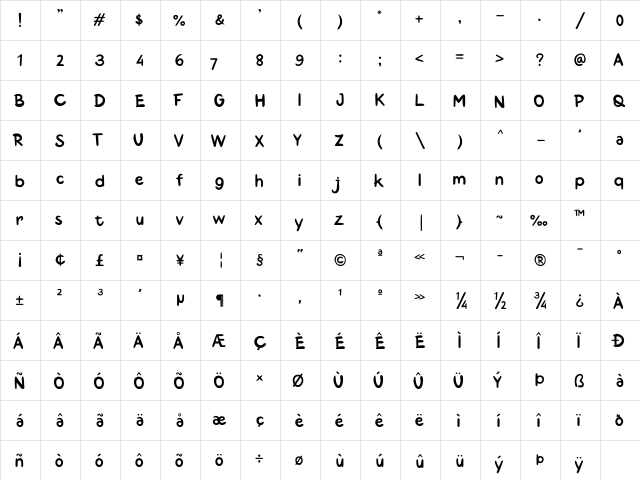
Kayobi Regular
| Designer | Daniel Herdianto |
Design Context for Kayobi Typeface
Kayobi offers clean, dependable letterforms without strong stylistic allegiance, making it a practical choice for designers who need flexibility.